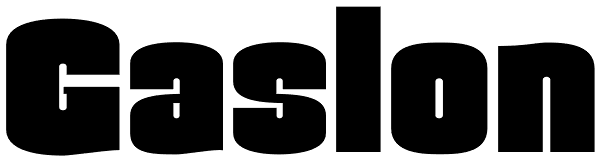
Gaslon
Gaslon is a slight reinterpretation and major expansion of a 1973 film type called Corvina Black, originally designed for VGC by A. Bihari. While the original typeface was popular in its own right, there were some things in it that were too quirky...